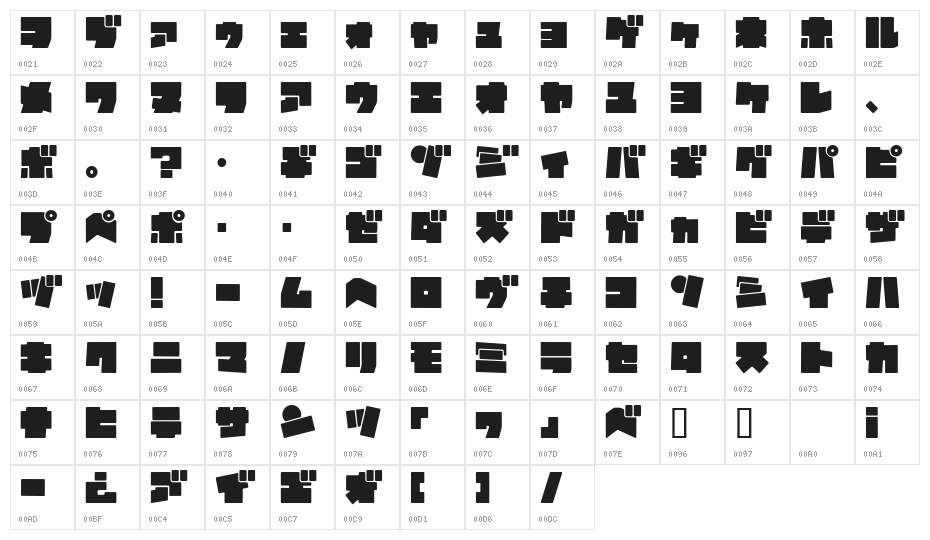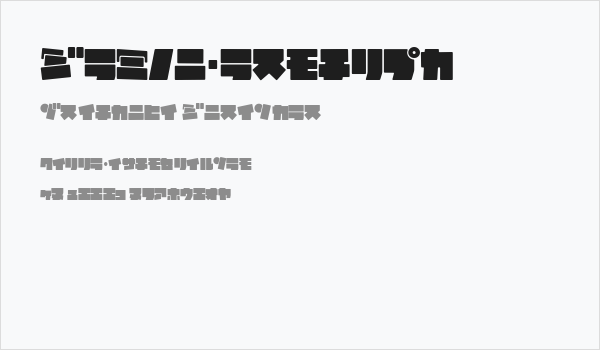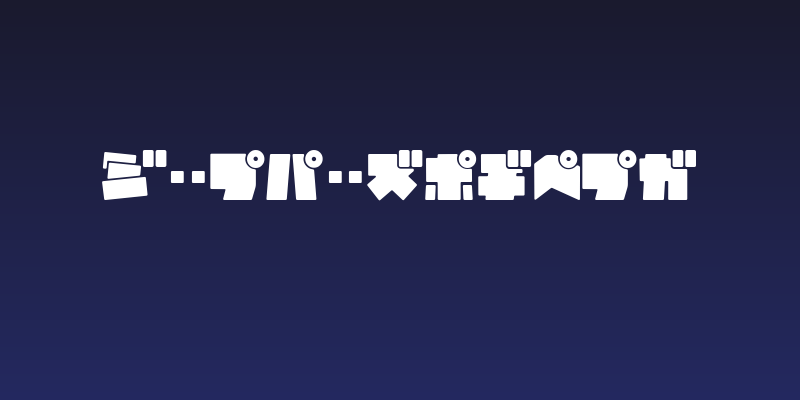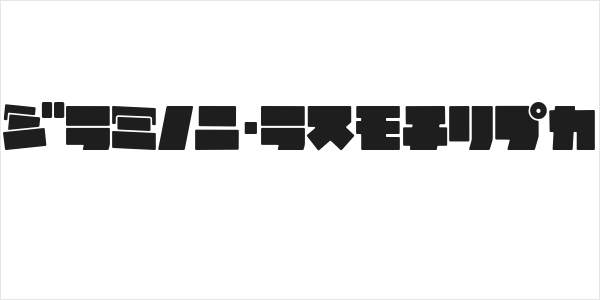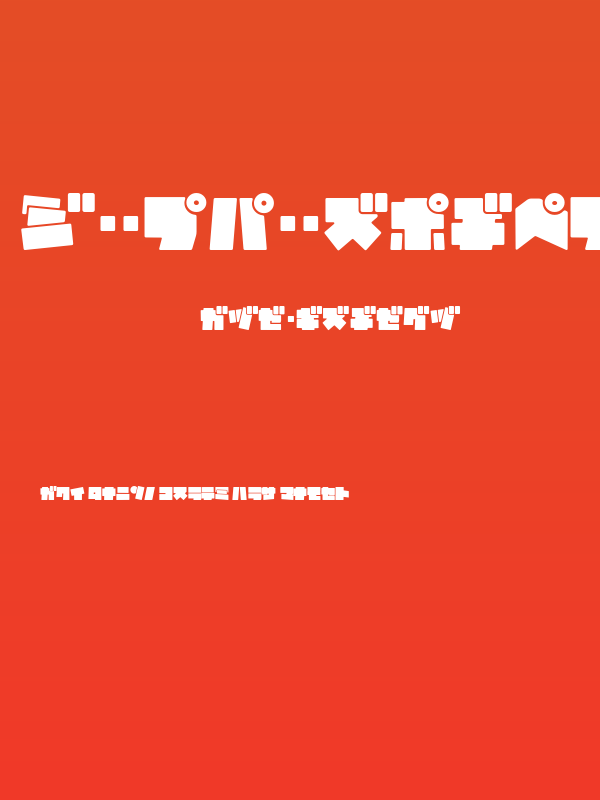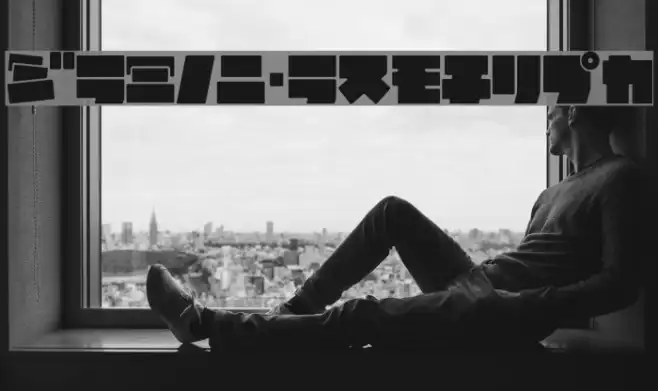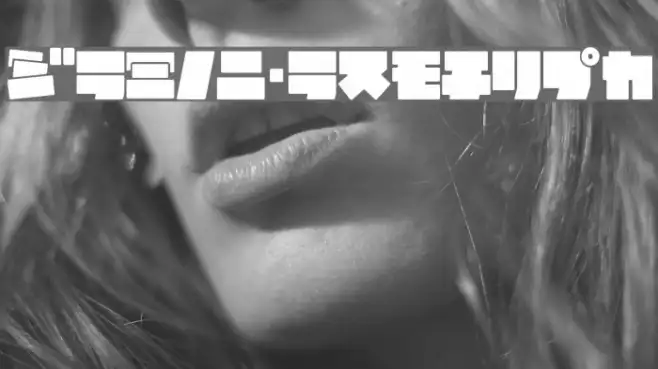
DonkiNormalKt Font
DonkiNormalKt Description
This font features bold, blocky characters with a playful and cartoonish style. The letters are heavily weighted, giving them a strong presence on the page. The strokes are uniformly thick, contributing to a low contrast appearance. The characters are tightly spaced, enhancing the compact and dense look of the text. This font's design is highly decorative, making it suitable for eye-catching headlines or titles. Its unique style is reminiscent of retro or vintage aesthetics, adding a touch of nostalgia to any project.